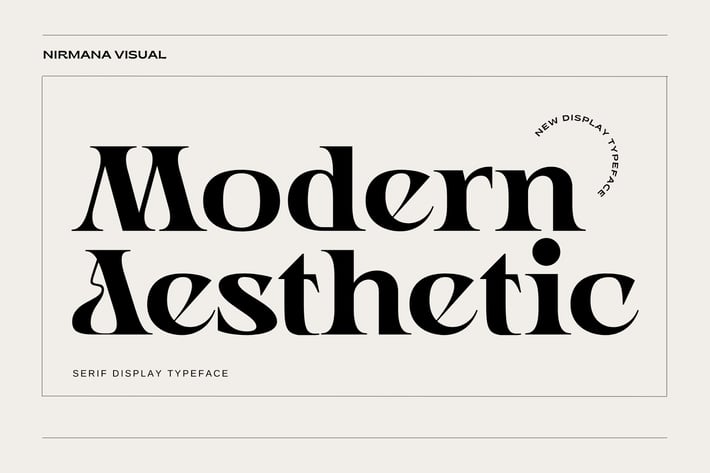
Modern Aesthetic - Modern Font
Modern Aesthetic - Modern Font, Serif Display Typeface.
Modern Aesthetic offers beautiful typographic harmony for a diversity of design projects, including logos & branding, social media posts, advertisements & product designs.